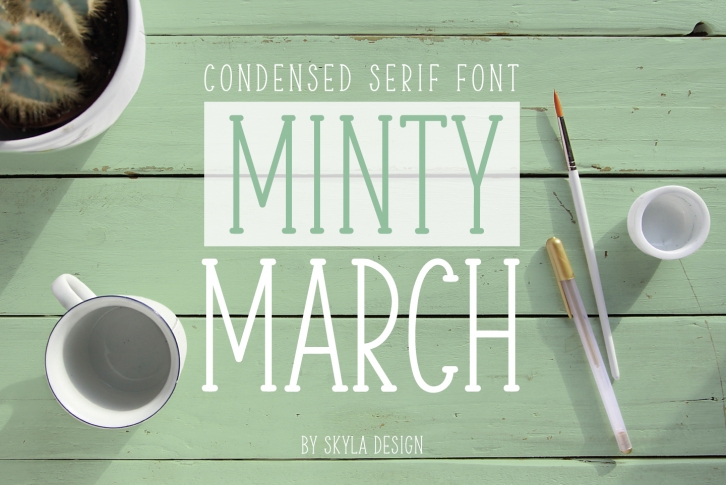
Skinny, condensed serif , Minty March is a trendy and unique font with an authentic style. It was designed by Angu00e8le Kamp and it's a great choice for creative people who need such a font. It was released on March 12, 2017 and the file size is 1.28 MB. Skinny, condensed serif , Minty March will add an organic vibe to any design idea!